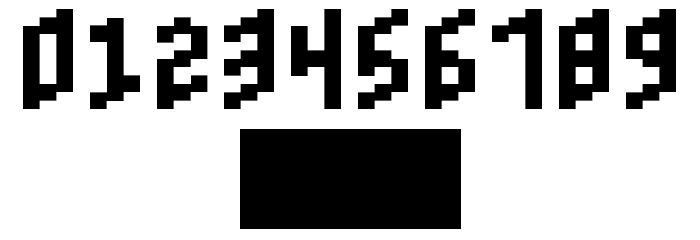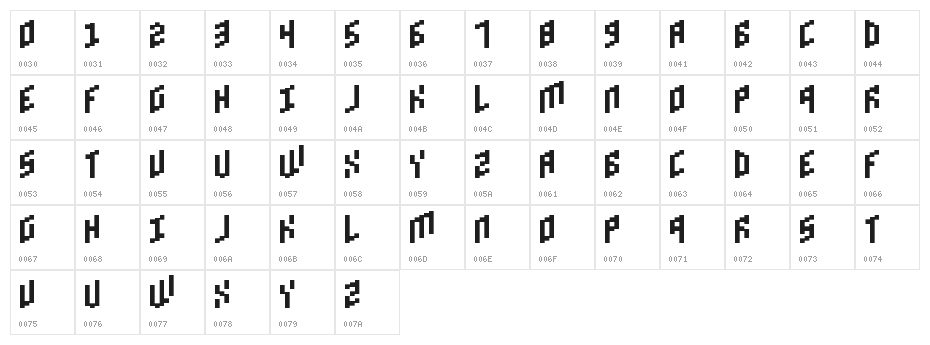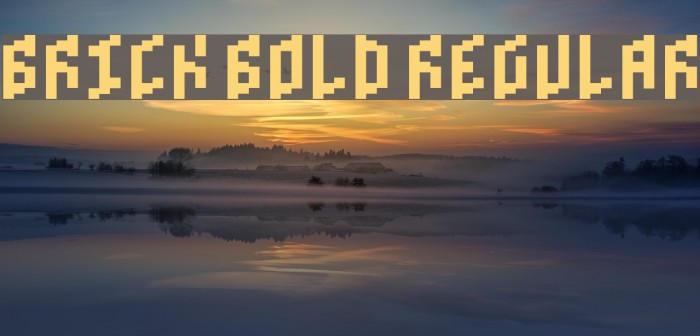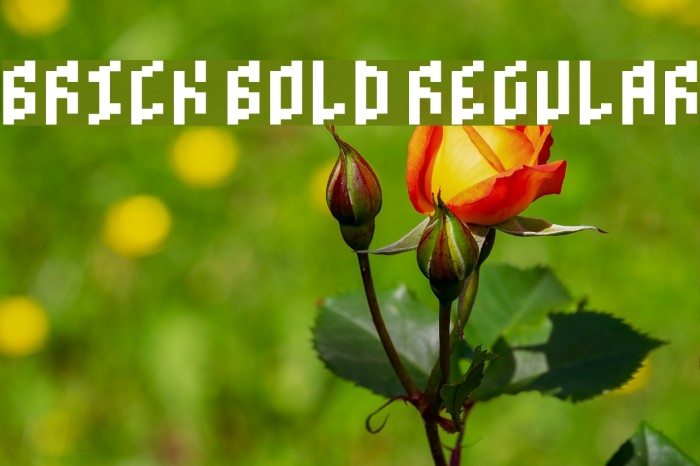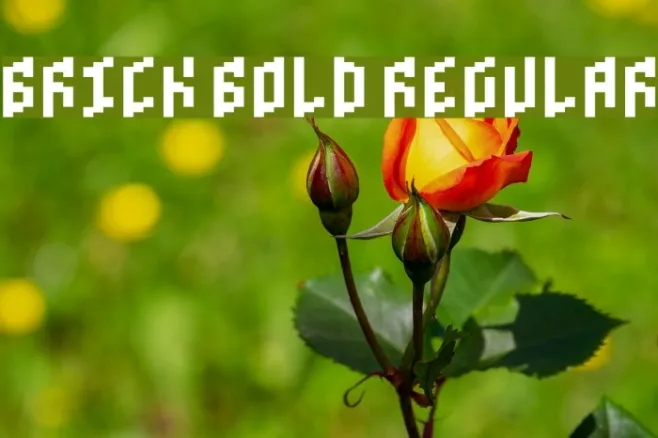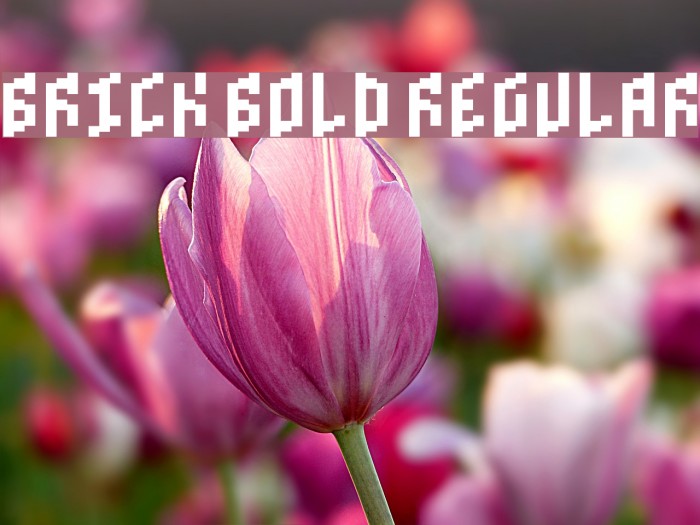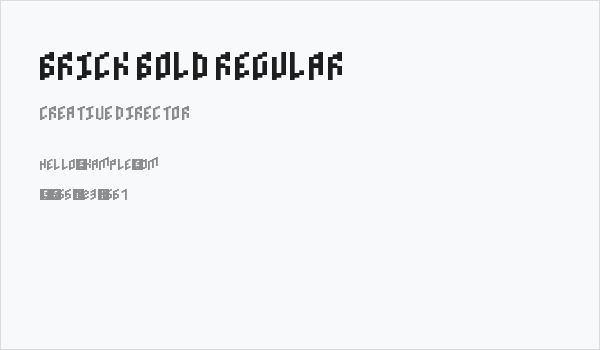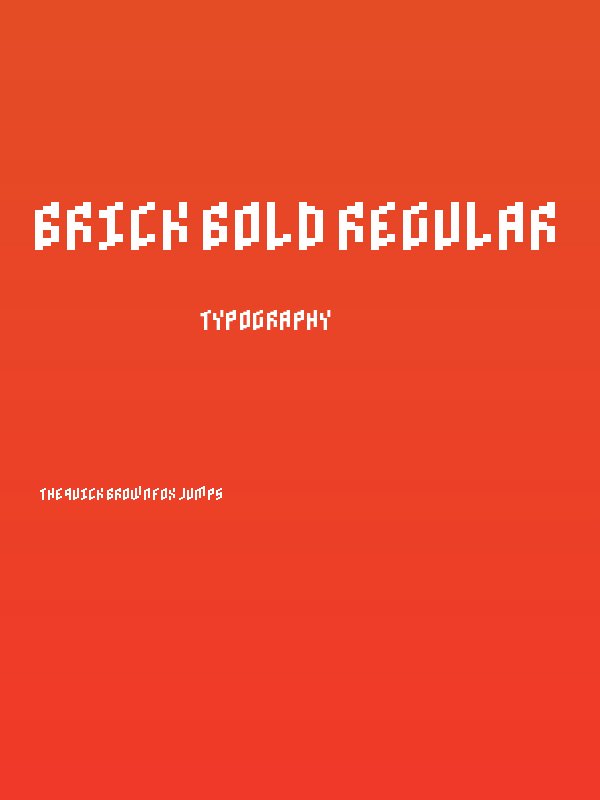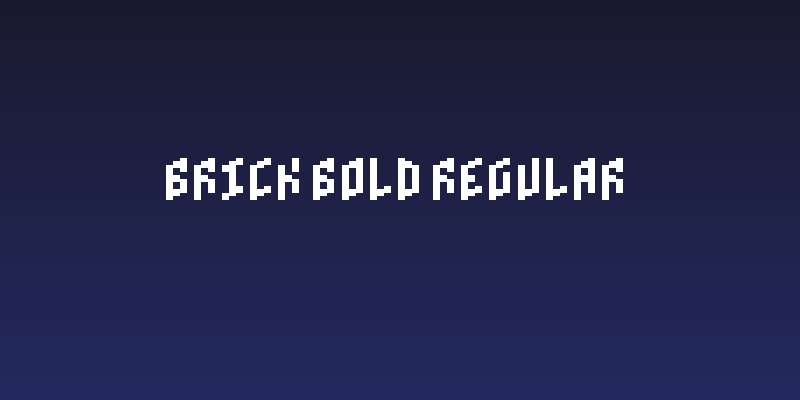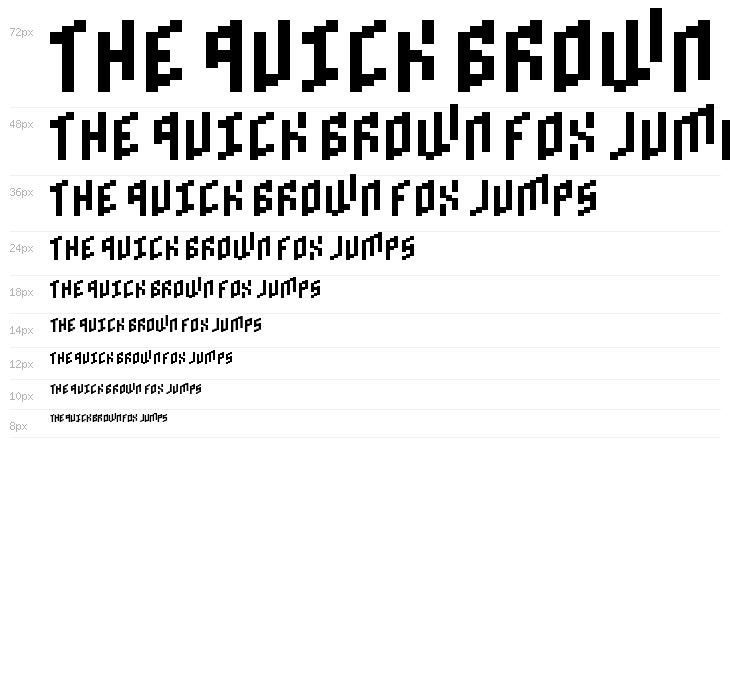
Brick Bold Regular Font
Brick Bold Regular Description
This font features a bold and blocky design, reminiscent of pixel art or early digital typography. Each character is constructed with sharp, angular edges, giving it a distinctly geometric and modern appearance. The uniformity in stroke width across all characters contributes to a cohesive and structured look. Its design is highly legible, even at smaller sizes, making it suitable for digital displays. The font's aesthetic is both retro and futuristic, capturing the essence of classic video game graphics while maintaining a contemporary edge.
| Use Case | Logos, Headlines, Digital displays |
| Proposed Projects | Ideal for video game design, digital art projects, retro-themed posters, and tech-related branding. |